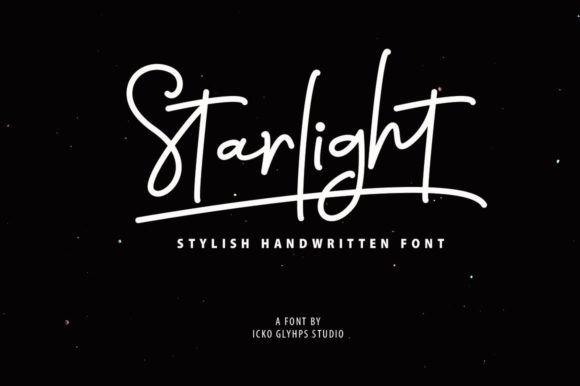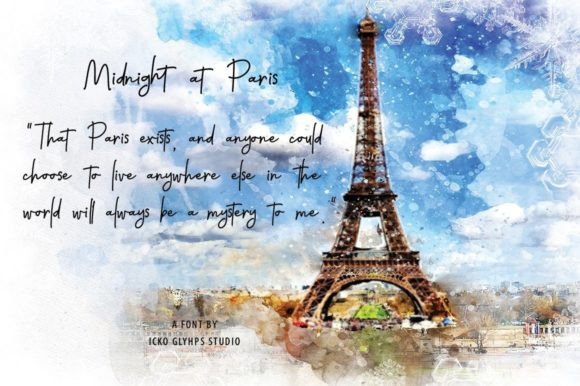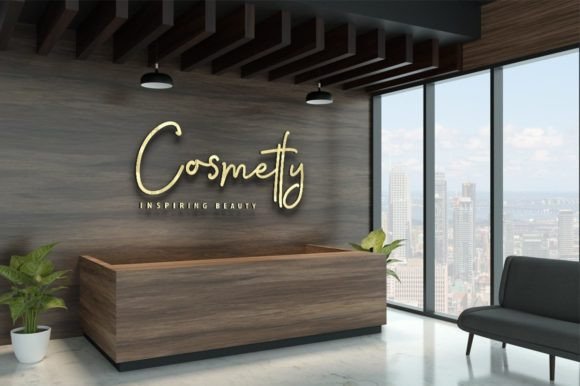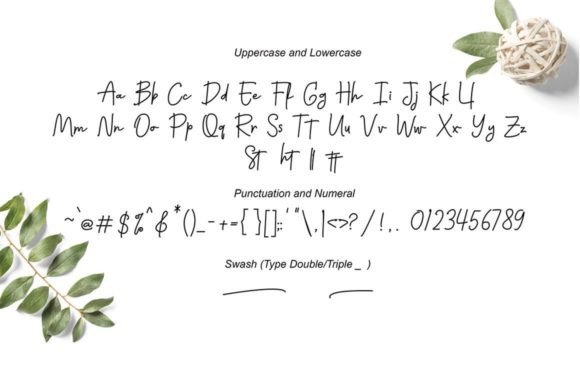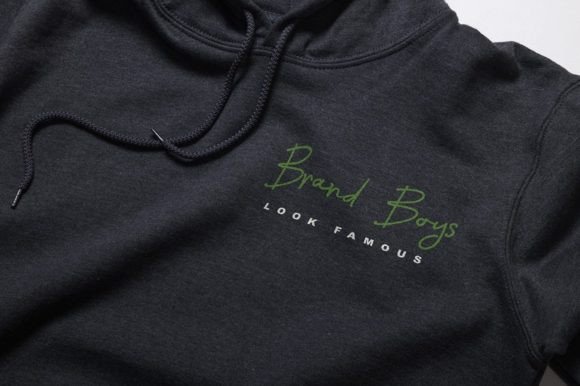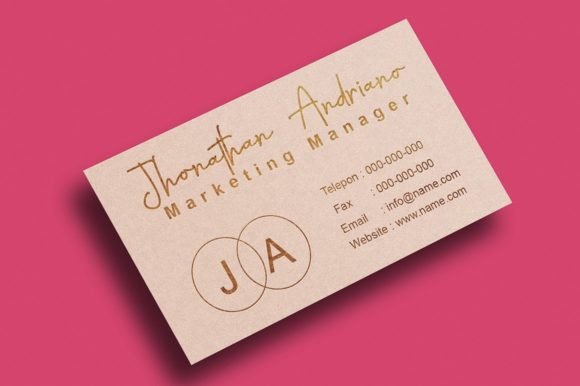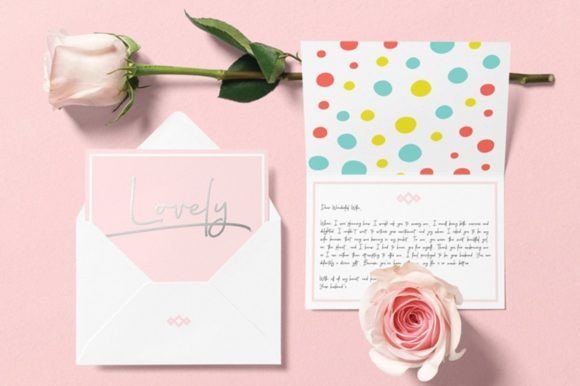
Starlight Font
About Starlight Font
“Starlight” is a flowing handwritten font characterized by an elegant touch, making it a perfect choice for a variety of creative projects. Its distinct and timeless style adds a touch of sophistication and charm, allowing designers to fall in love with its versatility and potential to create spectacular designs.
The flowing nature of “Starlight” contributes to its adaptability, making it suitable for a wide range of design applications. Whether you’re working on branding, invitations, posters, or any other project that requires a handwritten and elegant aesthetic, this font enhances the overall visual appeal.
The distinct style of “Starlight” sets it apart, making it memorable and versatile for various design contexts. Its timeless quality ensures that it remains relevant and visually appealing across different design trends and themes.
Incorporating “Starlight” into your projects allows you to leverage its elegant and flowing characteristics. Whether you’re aiming for a classic and sophisticated look or a more modern and trendy feel, this font adapts seamlessly to different creative visions.
In conclusion, “Starlight” is more than just a font; it’s a design tool that brings a flowing elegance to your favorite projects. Its distinct and timeless style makes it a versatile choice for creating spectacular designs that leave a lasting impression. Fall in love with the graceful charm of “Starlight” as you infuse its unique aesthetic into your creative endeavors.